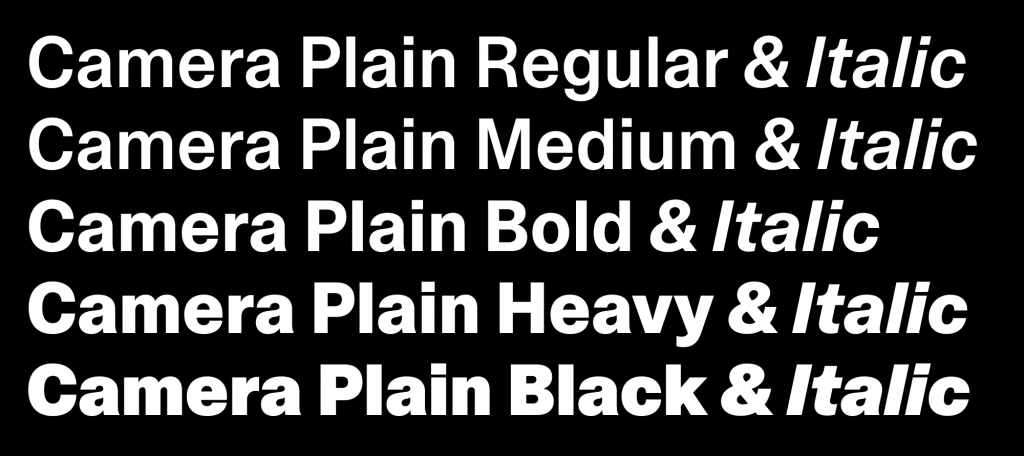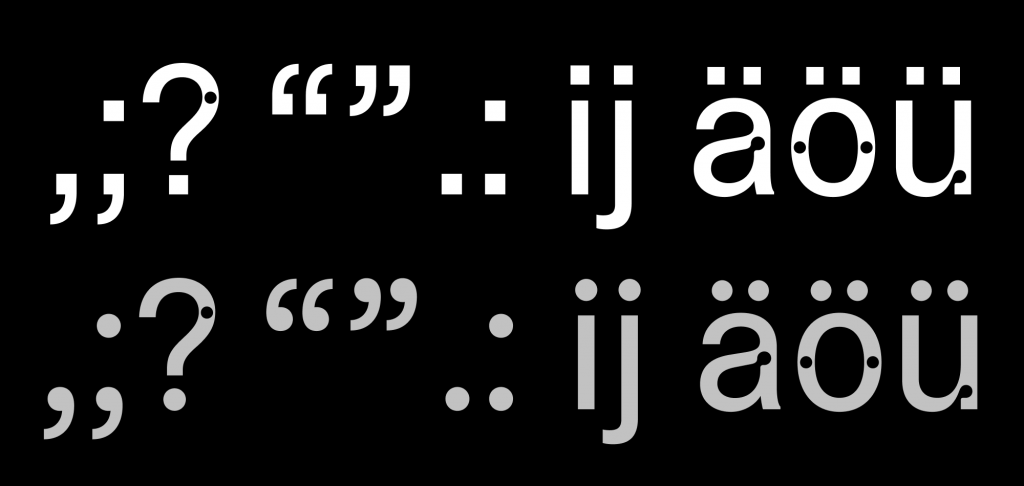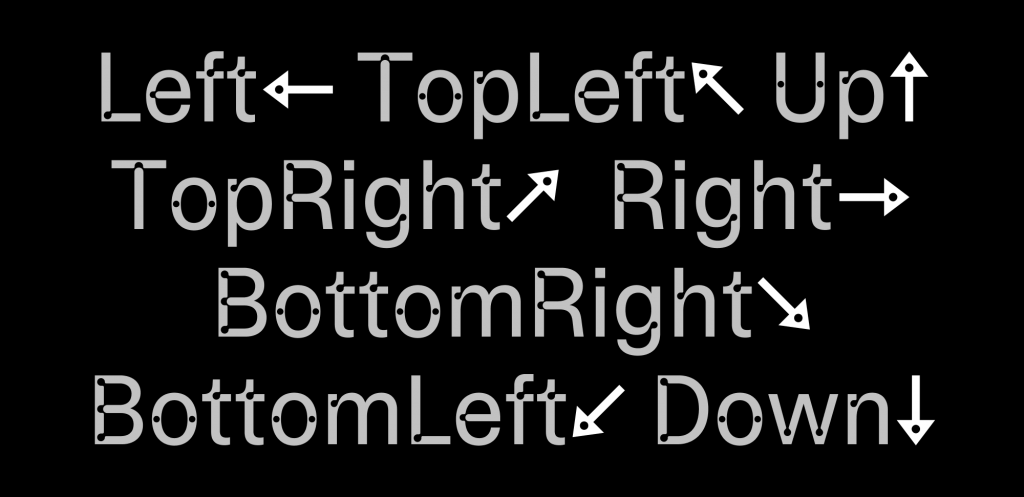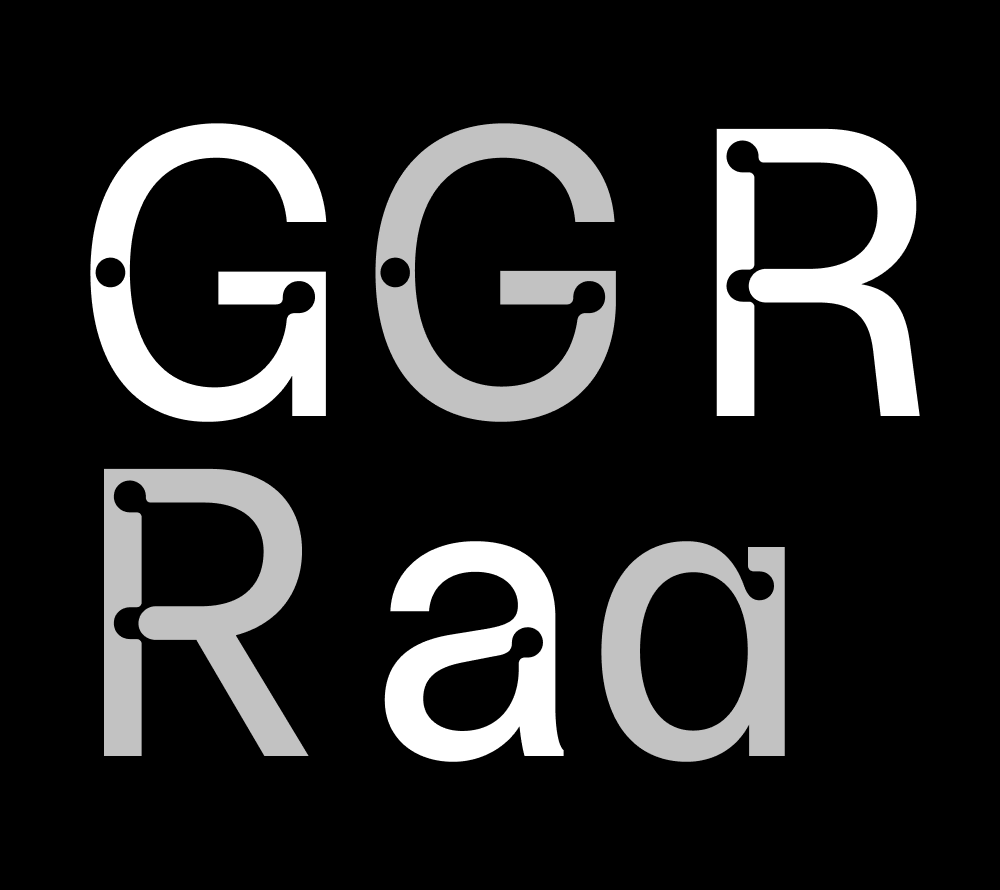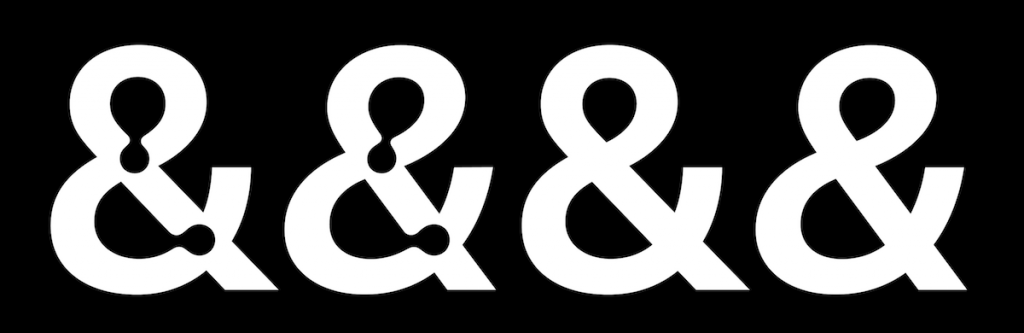
Name: Camera
Designers: Team Dinamo (Johannes Breyer, Fabian Harb, Robert Janes, Fabiola Mejía) with Sascha Bente
Foundry: Dinamo
Release date: April 2022
Back Story: Ever since the early days of Swiss type foundry Dinamo, which was founded in 2013, the team has been interested in the idea of updating light traps — typographic nuances that originally compensated for the low resolution of early television screens in the ’60s and ’70s — for the digital age. These worked in similar ways to ink traps (a feature of certain typefaces designed for printing in small sizes in which the corners or details are removed from the letterforms), which have already been reimagined by Dinamo in its font ABC Whyte. “Turning our attention to light traps felt like a natural next direction for us,” said the Dinamo team in conversation.
Light traps meant that when a font appeared on an early TV screen, “the screen’s blur filled in its holes so that each letter looked complete,” the team explained. Dinamo first encountered them on a 1960s typeface for the American TV station CBS, and the designers’ curiosity was further piqued when their friend Florian Lamm showed them a TV typeface catalog released by Studio Hollenstein in the 1970s.
“While light traps are obsolete now and were never intended to be seen, the circular holes are beautiful in their own right, and so we wanted to celebrate them and interpret them for contemporary digital eyes and using variable technology,” said Dinamo. “Light traps are such an unintentionally bold visual feature.” ABC Camera sees these light traps scaled up to accentuate them, and in a nice Swiss touch, the team dubbed them ‘holes’ (“as in Swiss Emmental”); however the font is also available without the holes.
Why’s it called Camera? The name Camera hints at those ’60s and ’70s light traps used on TV screens, according to Dinamo. It was also chosen since the word includes some of the designers’ favorite letterforms from the typeface, including the double-storey “a” and capital “C”. “We always like to highlight star characters in our font names — we even created a tool, The Dinamo Name Crawler, to help us and others find suitable names for new fonts.”
What are its distinguishing characteristics? Aside from the obvious use of the ‘light traps’, or ‘holes’, Camera is a fairly neutral, toned-down grotesque sans serif that Dinamo described as “similar in style to Helvetia but with freer, less strictly defined proportions and a narrower body.”
The font comes with five sets of alternates, with both the ‘hole’ and ‘plain’ versions available as a full family of five weights, including italics. “Creating italics was a bit of a challenge for the hole version of Camera,” said foundry cofounder Breyer, crediting new Dinamo team member Fabiola Mejía as having cracked them. “For our italics, the holes stay upright while the character slants and we decided to keep the bullet holes as circular as possible,” Breyer explained.
What should I use it for? Camera was originally used as the typeface for a visual essay on surveillance, security, scams, and fakes that appeared in Shoplifters, published by Actual Source — a publishing imprint and online store. The font is also used in its hole version for the Actual Source logo, and appears on the bookends for its its series of board books released in collaboration with New Tendency that include editions by the likes of Hassan Rahim.
“We’re always interested in seeing uses that explore and mix various ends of the font’s variable spectrum together,” said Dinamo. “There’s already been lots of nice and unusual uses of Camera that we’ve loved. It appeared on the sticker sheet of GQ Korea’s 20th anniversary issue, so we’ve seen lots of pictures of the font stuck on people’s laptops and phone cases. It was also use in the identity of the Biennale Carbone by Clémentine Léon and Gautier Scerra at Service Local and more recently, Swiss-based Onlab used it for DJ Stringray’s new label MICRON AUDIO (released together with Tresor Records).”
Clearly, it’s a great choice for cultural-leaning projects, but Camera’s neutrality means it’s pretty flexible, working across identity designs, headlines, mastheads, and posters; as well as on less flashy applications like branded texts or wayfinding.
What other fonts would it pair well with? Again, Camera is both quirky and neutral, so could make for interesting pairings with anything from blocky display fonts to more traditional serifs. For Dinamo, however, there’s one obvious pairing: “Camera pairs perfectly with Camera Plain, and the other way around!”